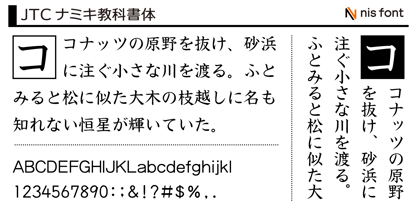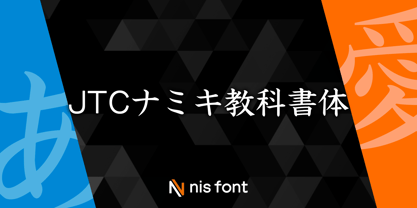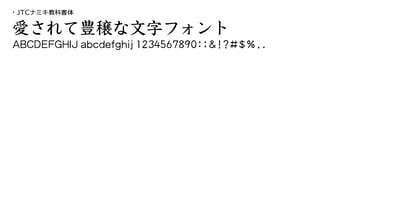
OT-NIS_KYO
by NIS Fonts
This is a textbook typeface designed to resemble the Mincho style commonly seen in everyday life. It features a slightly thicker design to help children learn and recognize characters more easily. In JIS Level 1 Block 08, specialized symbols have been included in place of line symbols. Note: This typeface supports the JIS2004 character set.